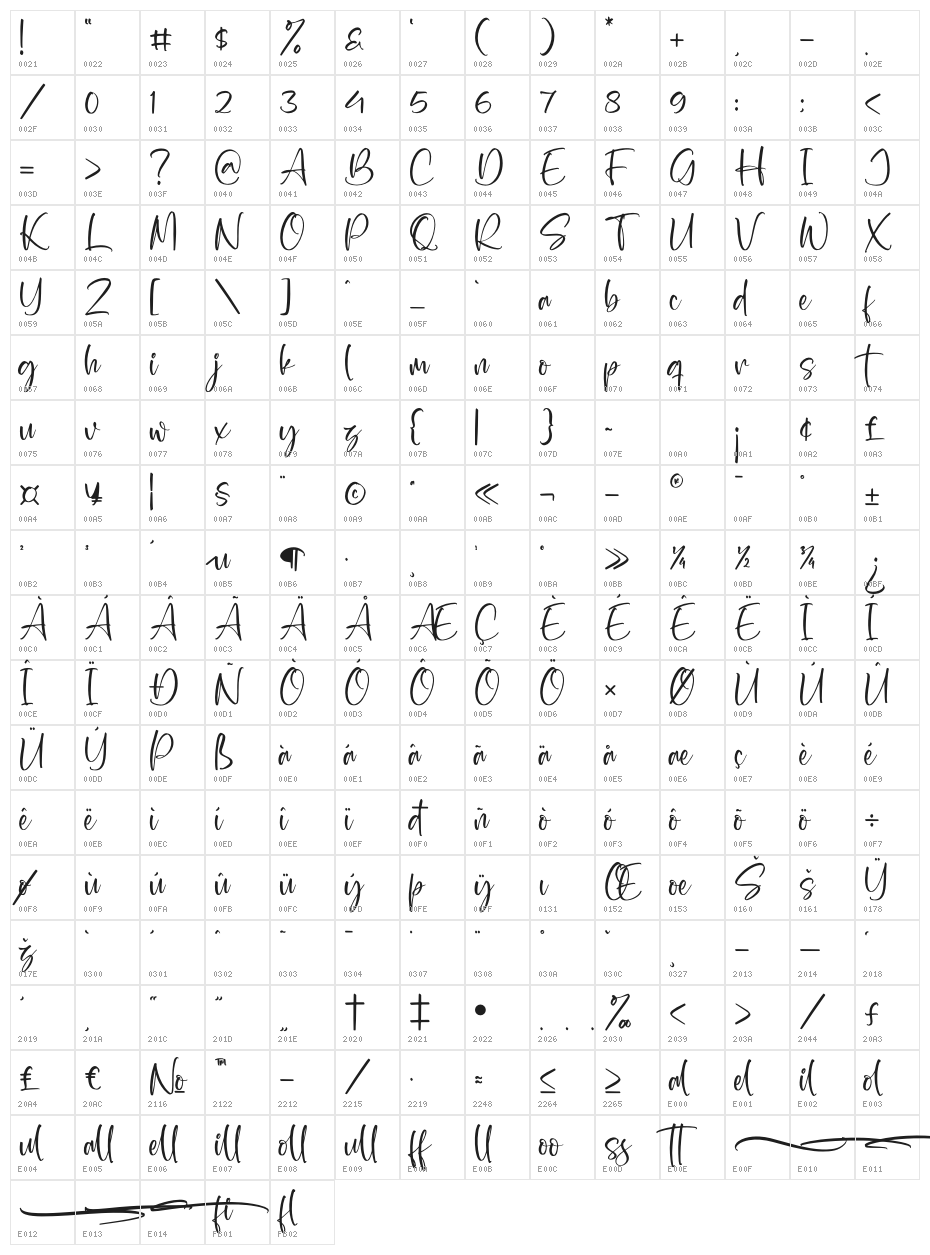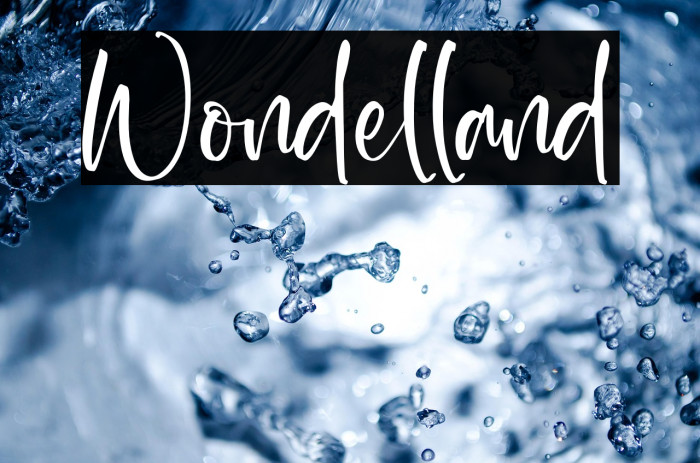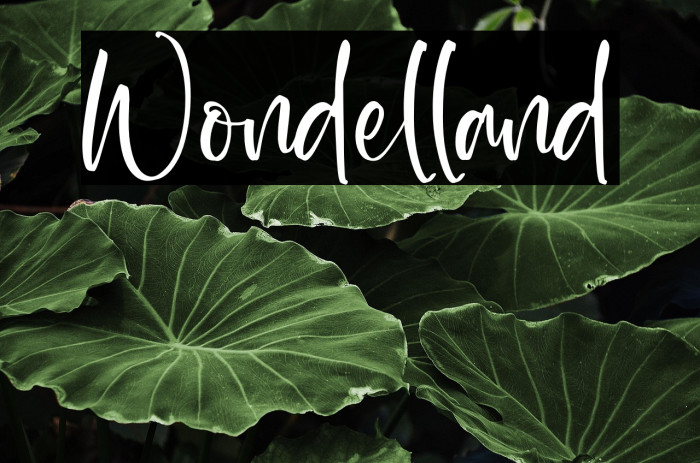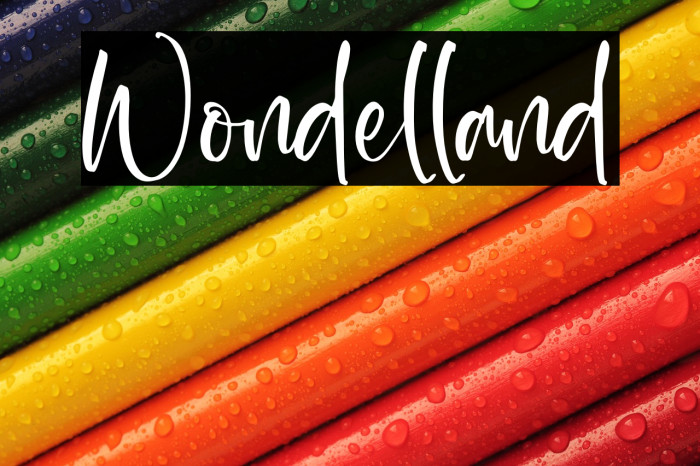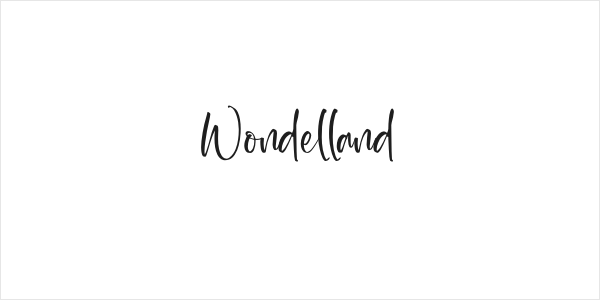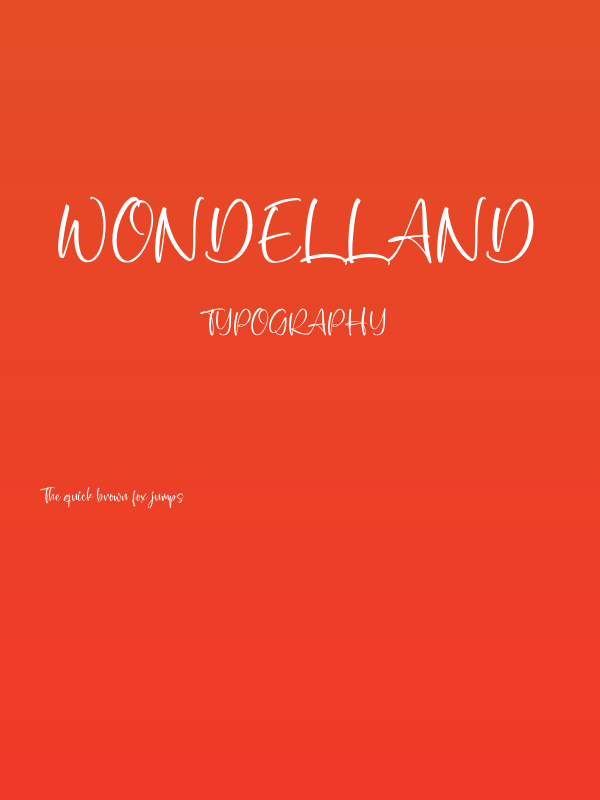
Wondelland Font
Wondelland Description
A playful, handwritten script font with a casual and whimsical style, featuring smooth, flowing lines and varying stroke widths.
| Overall Style | Whimsical |
| Use Case | Logos, Invitations, Greeting cards |
| Proposed Projects | Greeting cards, invitations, playful branding. |